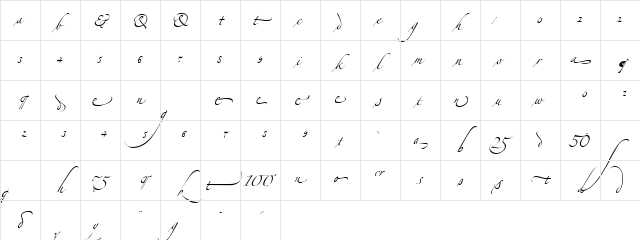
Complete Alexandra Zeferino Ornamental Regular glyph index. Displaying only characters natively supported by Alexandra Zeferino Ornamental Regular font.
Alexandra Zeferino Ornamental is built around its visual character rather than neutral utility - its distinctive forms are designed to make an impression at display sizes.
Font Pairing: Pair with a clean neutral sans-serif for body copy to let Alexandra Zeferino Ornamental's character lead without overwhelming the composition.
Pro Tip: Use Alexandra Zeferino Ornamental exclusively at display sizes - it was designed to be seen, not read at length. Let a neutral companion handle body copy.